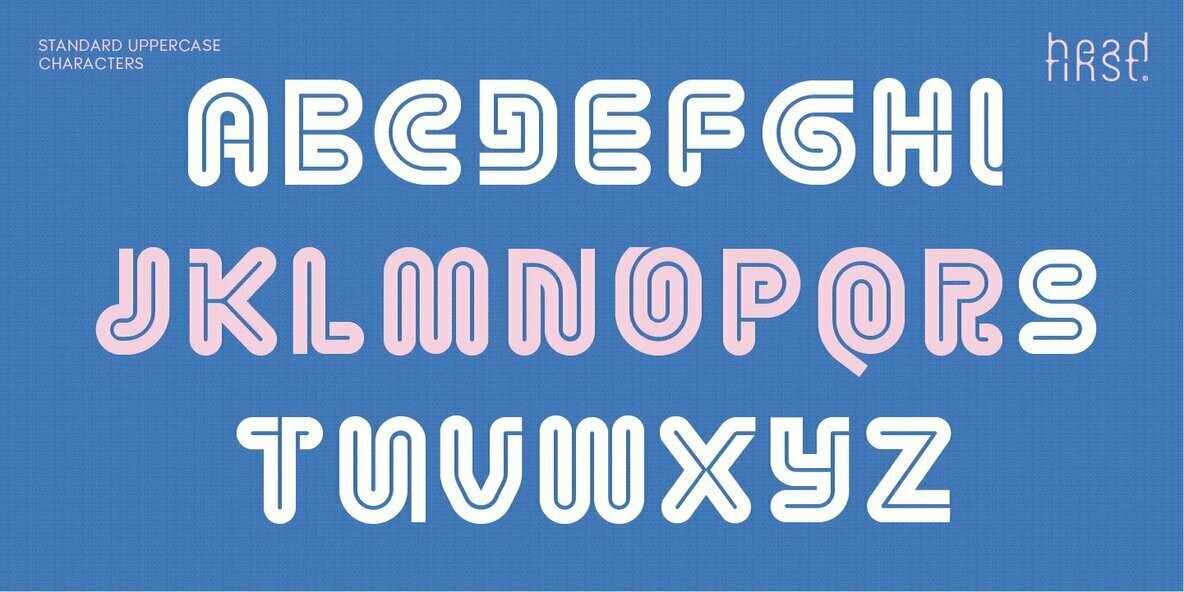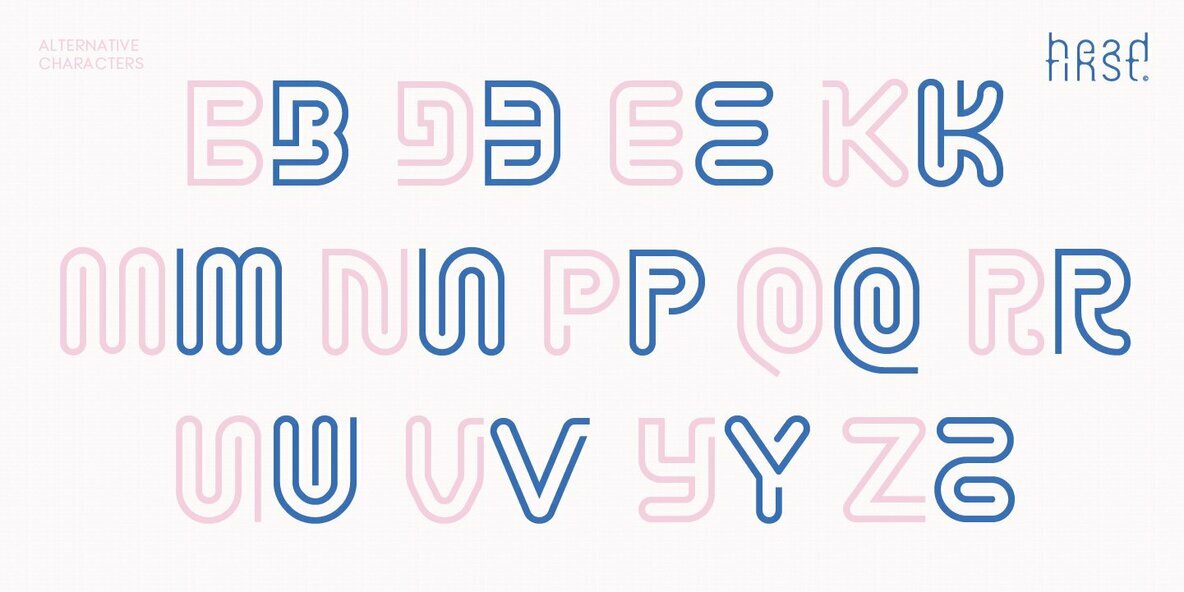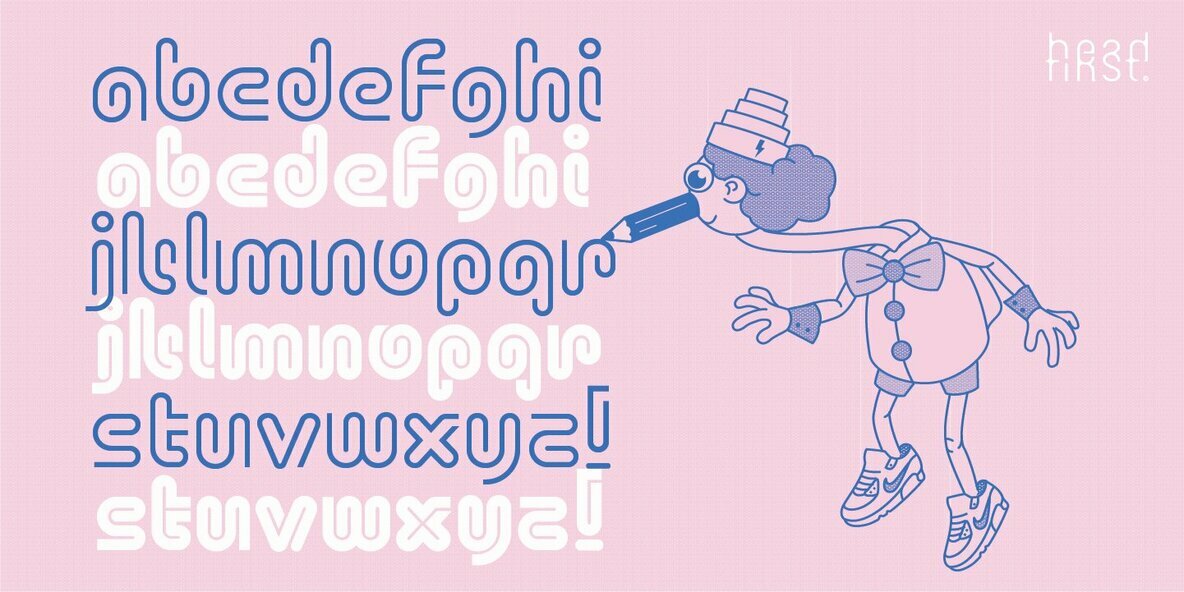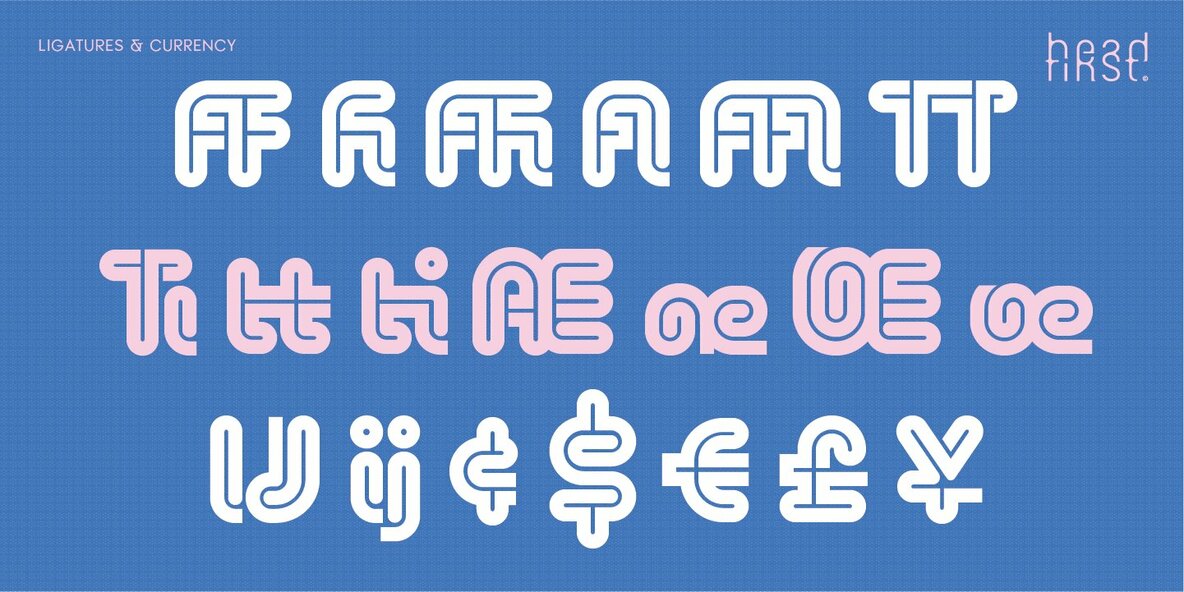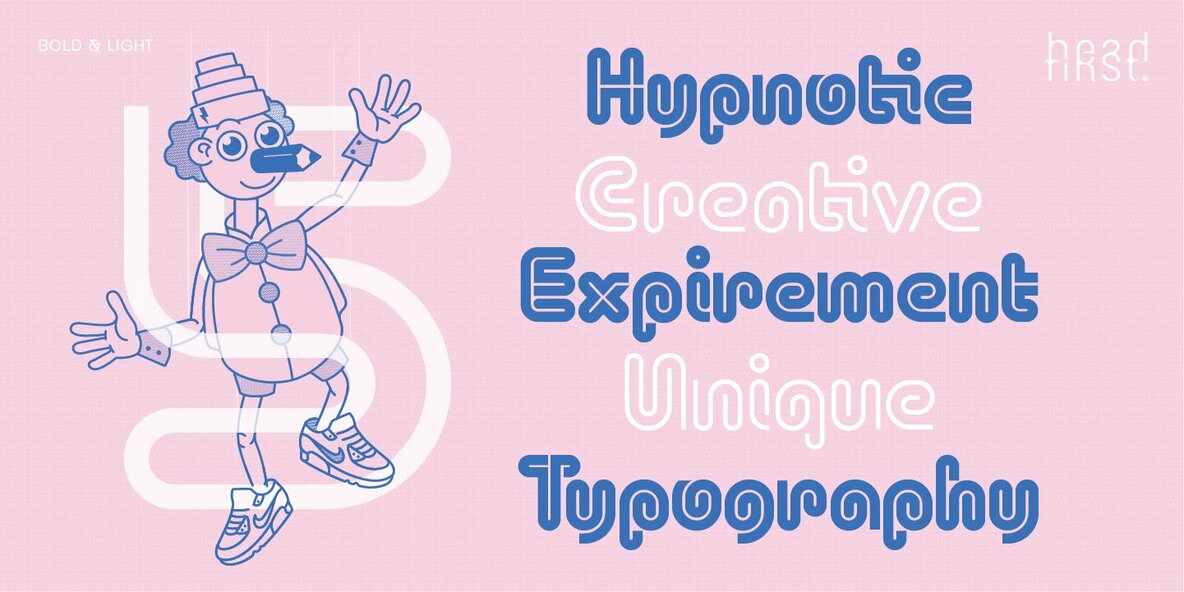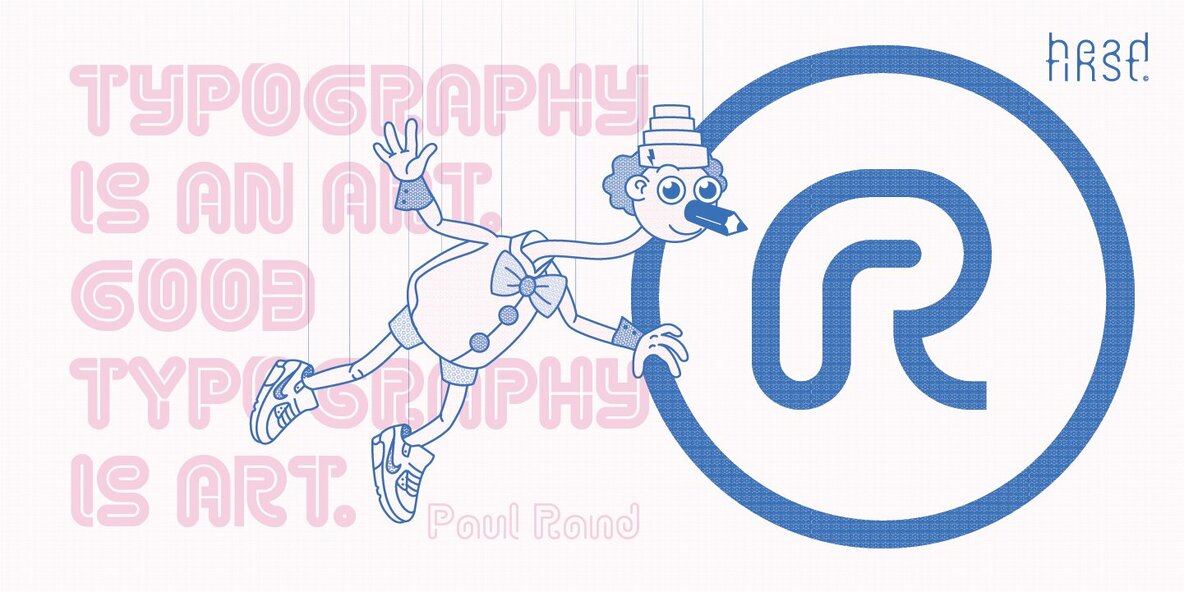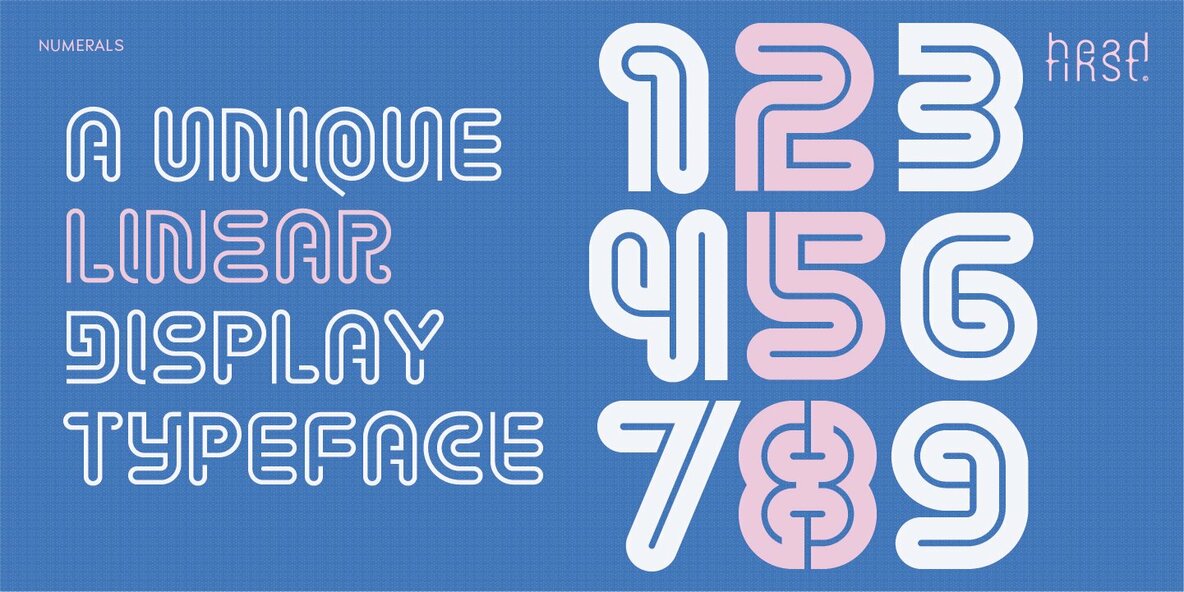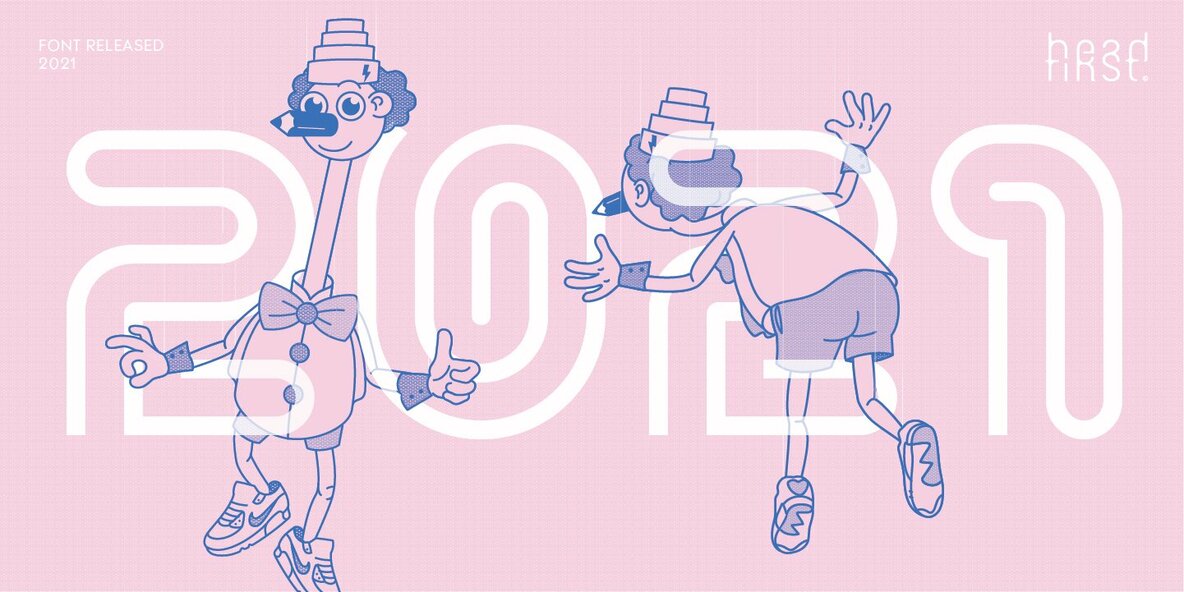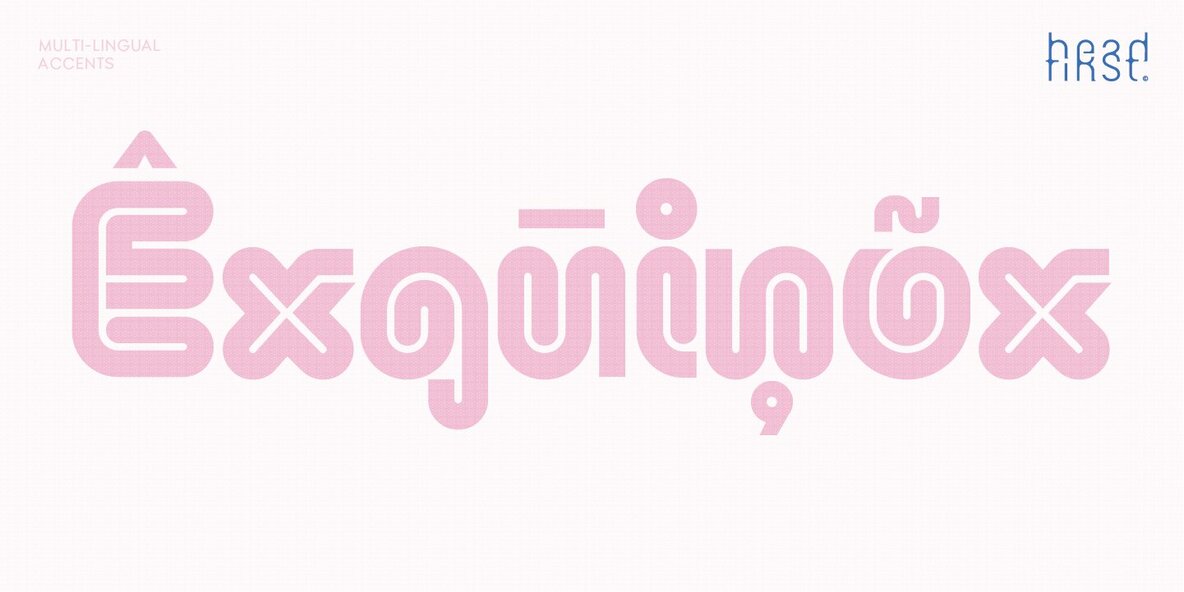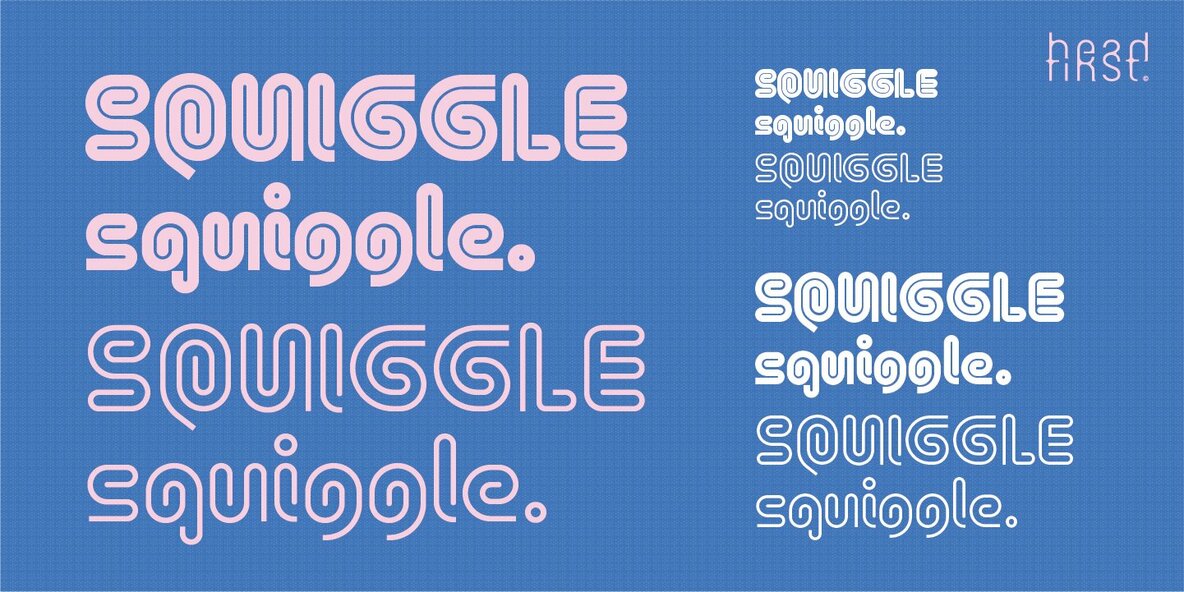
Squiggle Font
Squiggle is a unique display typeface based on a linear form. Each character has been carefully crafted and considered for maximum legibility. This typeface is a available in two weights; Light & Bold.